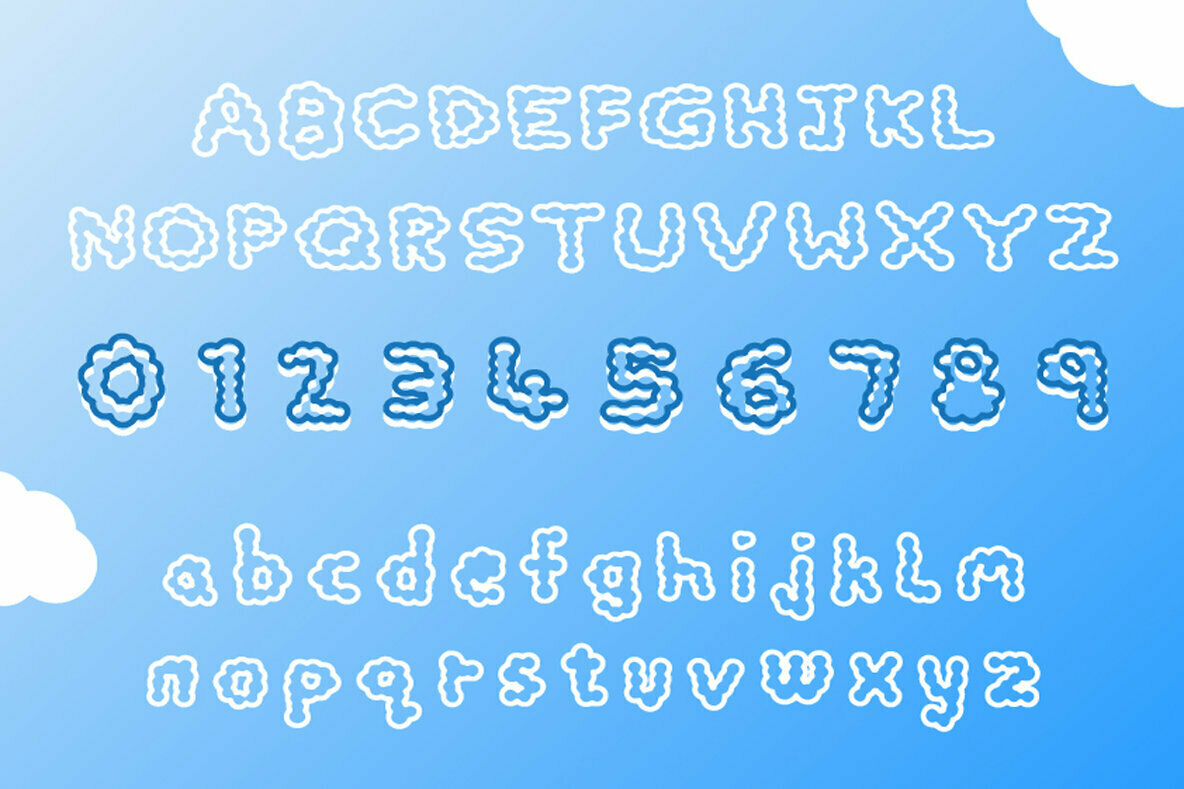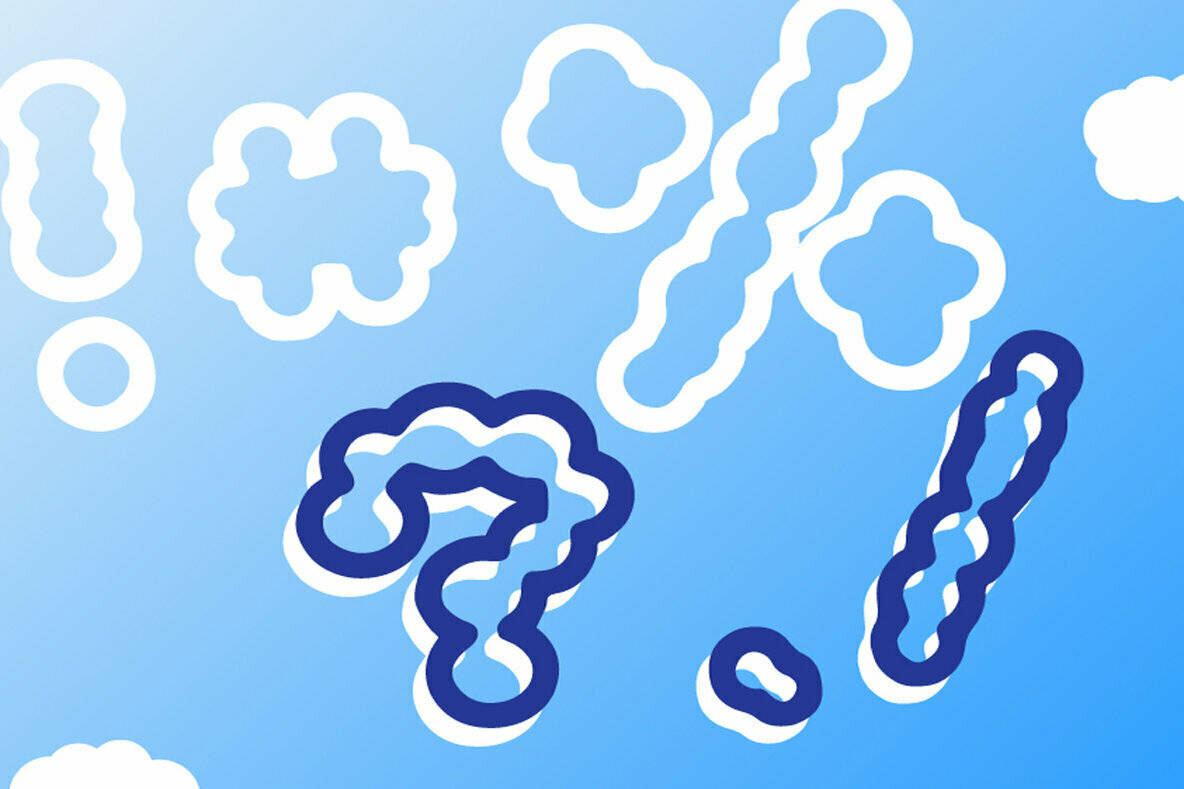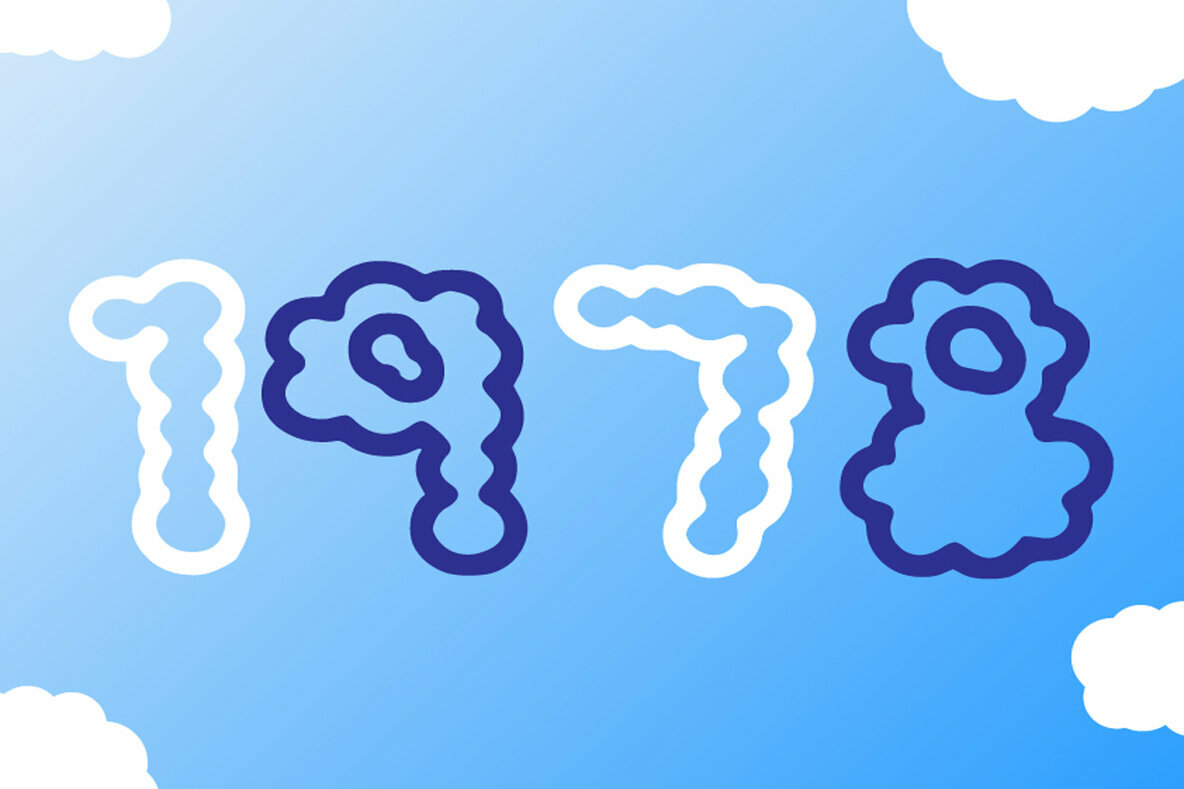
Fluffly Smoke Font
Fluffy Smoke
Fluffy Smoke is a rounded comic display font. It features a fluffy clouds look that makes it perfect for any project that requires a personalized look!